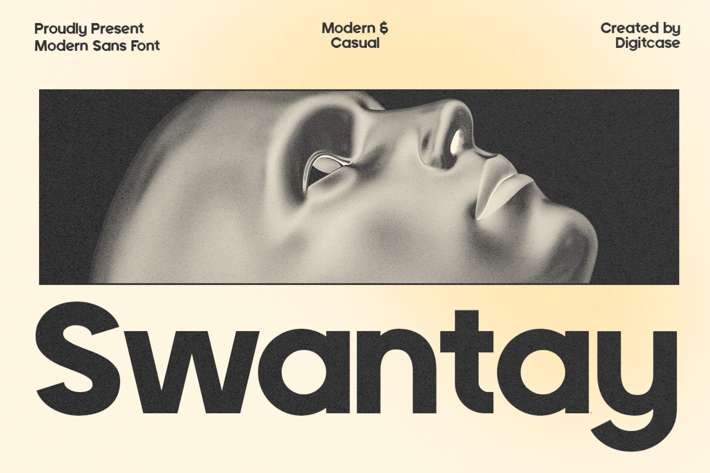
Swantay - Modern Sans Font
Swantay - Modern Sans typeface excellent used for the manufacture quote text, logotype, header magazine, wedding, advertisement, newspaper and many more.
Main Features
Ligatures & Alternate
Numeral & Punctuations
* Multilingual Support